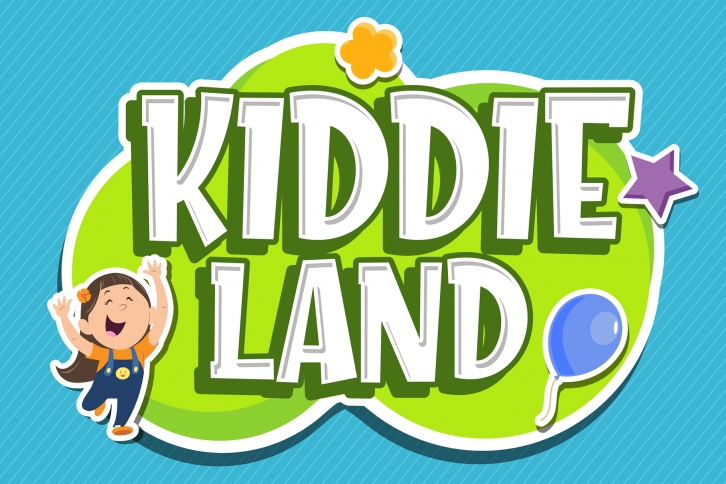
Kiddie Land is a great font that was designed by figuree. Imagine the amount of combinations you can create using this font! The archive is 19.24 MB and it was released on March 10, 2020. Kiddie Land looks beautiful on wedding invitations, greeting cards, logos, posters, labels, t-shirt designs, logos, business cards and is perfect for use in ink or watercolor works, fashion, magazines, packaging and food menus, children's books and more!